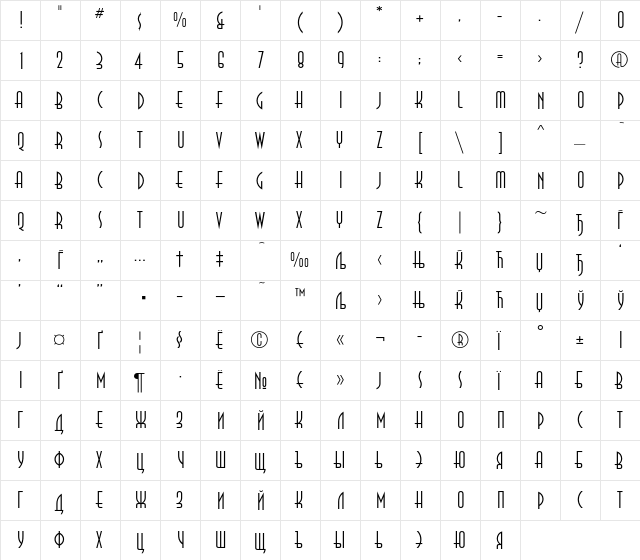
AnnaLightC Regular
Design Context for AnnaLightC Typeface
AnnaLightC is a composed and adaptable typeface that performs quietly and consistently across a wide range of design contexts. The delicate stroke weight brings airiness and refinement to layouts.